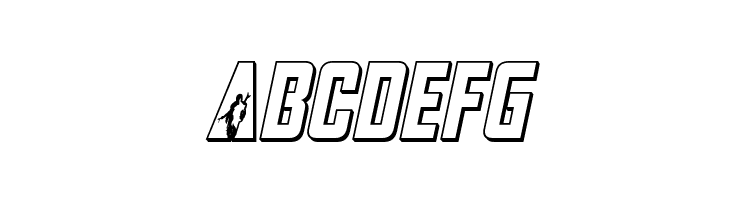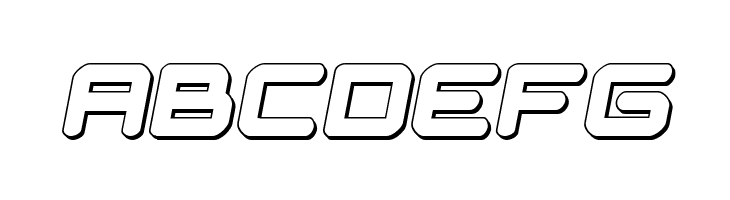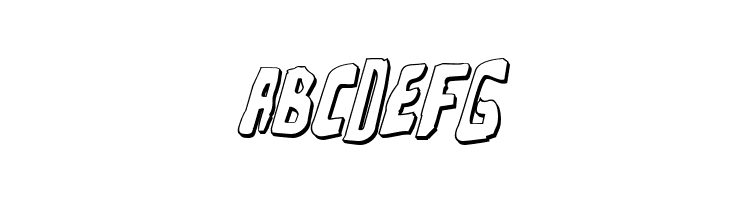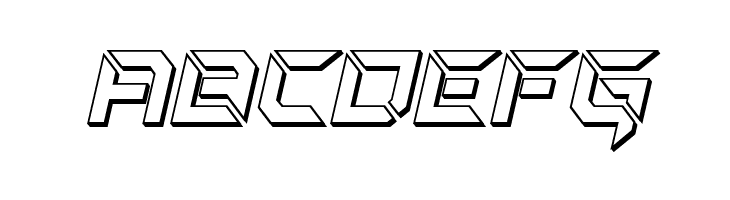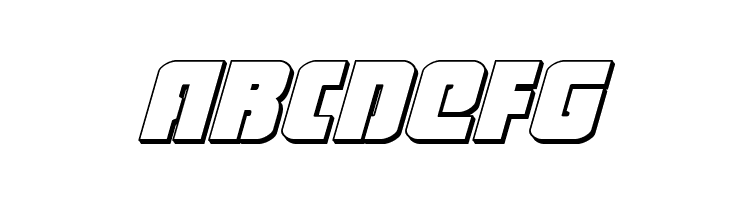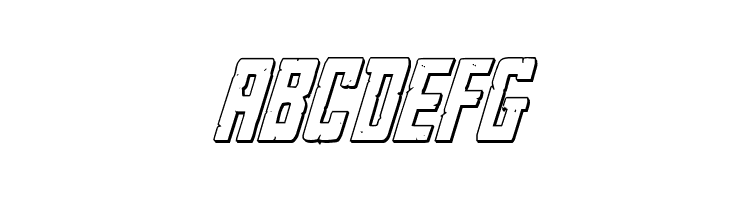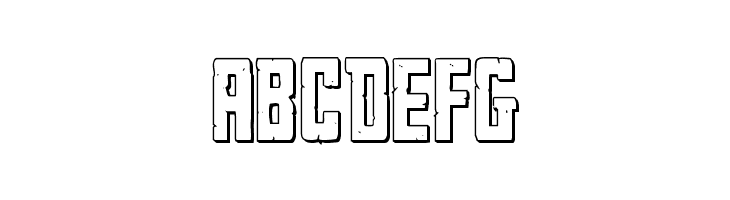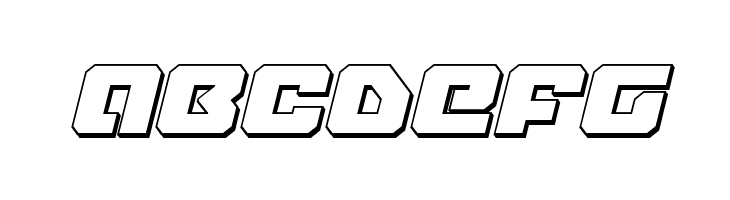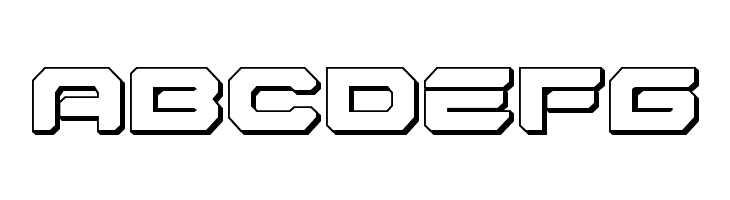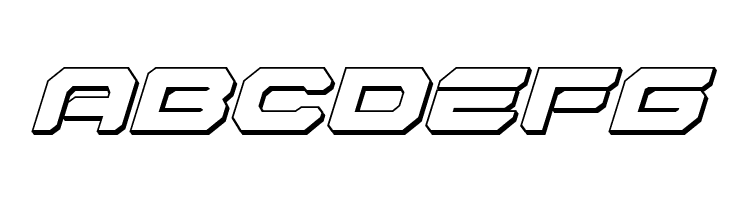
• Mandalore 3D Italic
A bold, 3D italic font with a futuristic and dynamic style.
• NGC 292 3D Semi-Italic
A bold, futuristic font with a semi-italic slant and 3D outline effect.
• Zakenstein 3D Italic
A bold, 3D italic font with a dynamic and energetic style.
• Zero Prime 3D Italic
A bold, italic, 3D geometric font with a futuristic style.
• Heavy Falcon 3D Italic
A bold, 3D italic font with a futuristic and dynamic style.
• Rockledge 3D Italic
A bold, 3D italic font with a dynamic and impactful style.
• Rockledge 3D
A bold, 3D geometric font with a retro, comic book style.
• Legacy Cyborg 3D Italic
A bold, 3D italic font with a futuristic and geometric design.
• Hyper Viper 3D
A bold, 3D geometric font with a futuristic style.
• Hyper Viper 3D Italic
A bold, italicized 3D font with a futuristic and dynamic design.